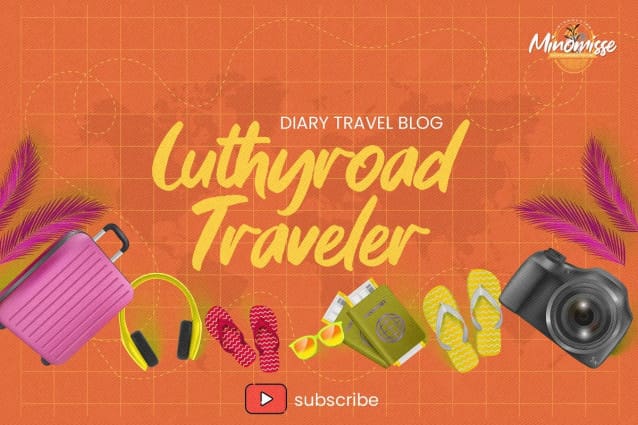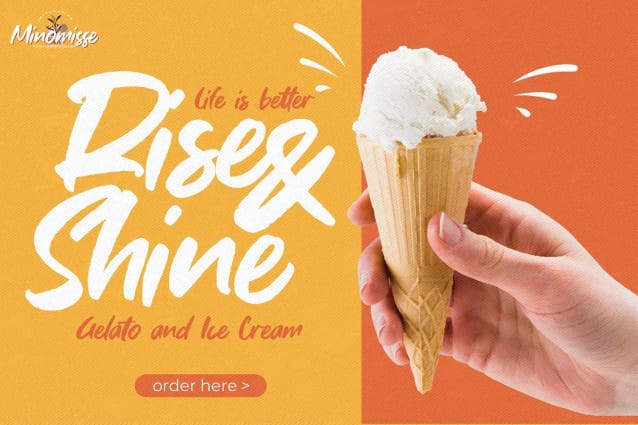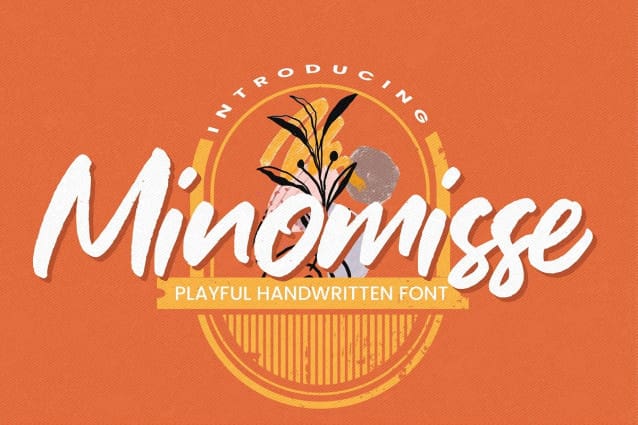
Minomisse Script Font
Minomisse Script Font is Playful Handwritten Font is a Authentic Style and classy style, this font is great for your creative projects such as watermark on photography, and perfect for logos & branding, invitation, advertisements, product designs, stationery, wedding designs,label ,product packaging, special events or anything that need handwritting taste.
Minomisse Script Font a natural handwritten feel. This handmade font will make your design has a beautiful natural touch for each details. It is perfect for any design project as Invitation,logo, book cover, craft or any design purposes. photos, photography overlays, signs, window art, scrapbooking, tags and so much more! This font is PUA encoded which means you can access all of ligatures.